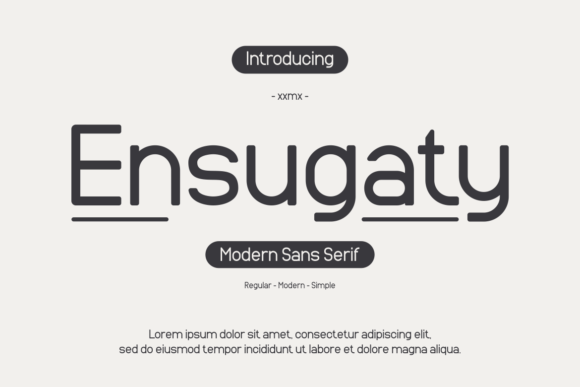
Feast your eyes on Ensugaty Font, the ultimate font for tech-savvy visionaries. This masterpiece is crafted with a symphony of bold strokes and captivating curves, exuding an aura of innovation and progress. Experience the allure of the future with Ensugaty Font, your digital companion for creating awe-inspiring designs.
Immerse yourself in a world of limitless possibilities as Ensugaty Font takes you on a journey to the forefront of design. Leave behind the mundane and embrace the extraordinary with this dynamic font that refuses to be tamed. Watch as your creations transform into works of art, captivating audiences with their elegance and precision.
Unleash the true potential of your brand with Ensugaty Font. Its versatility knows no bounds, effortlessly adapting to a myriad of design projects. From sleek logos that command attention to captivating template designs that leave a lasting impression, Ensugaty Font is your secret weapon for leaving an indelible mark on the digital landscape.
Carve your niche in the world of esports with Ensugaty Font. Its modern aesthetic and competitive edge will ignite the passion of gamers and elevate your team to legendary status. Create stunning graphics, captivating overlays, and eye-catching merchandise that will leave opponents in awe.
The Ensugaty Font family is a gift to designers, offering a treasure trove of creative possibilities. With its upper and lowercase characters, you'll have the freedom to craft messages with impact, while the multilingual support ensures your designs resonate with audiences worldwide.
Don't settle for ordinary. Embrace the extraordinary with Ensugaty Font. Its modern, bold, and authentic style will catapult your designs into the stratosphere of brilliance. Elevate your work to new heights and leave your mark on the world. Download Ensugaty Font today and embark on a journey of creative triumph.